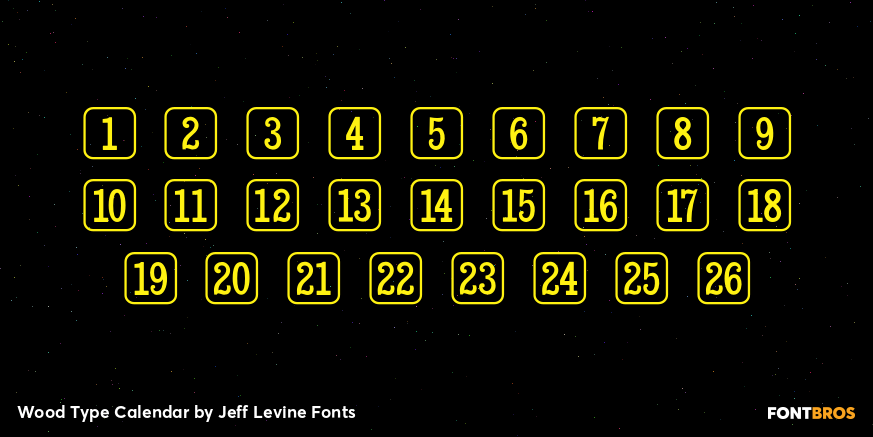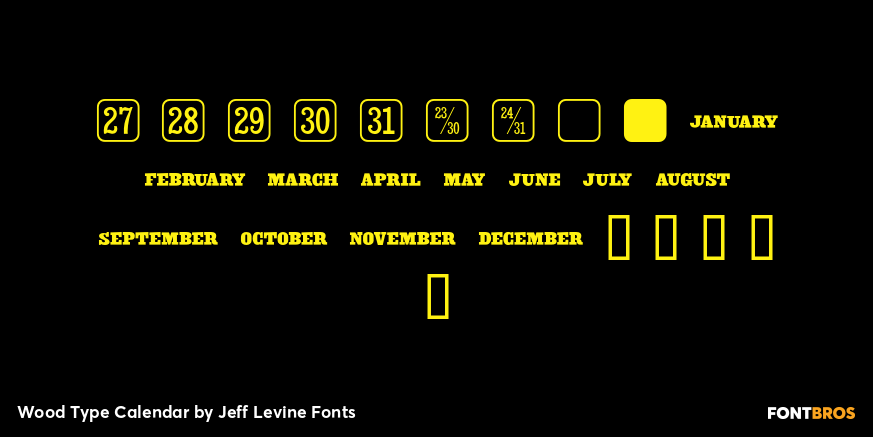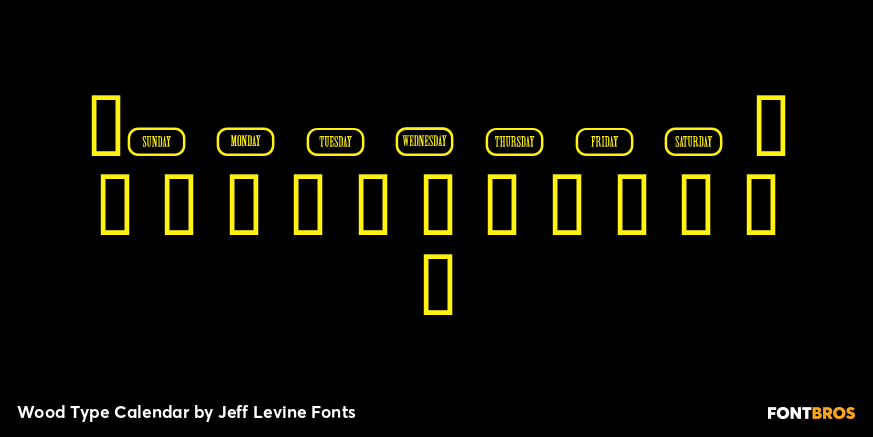
Wood Type Calendar
Wood Type Calendar JNL is a set of components for making monthly calendar pages. Based on a set of vintage wood type numbers, the dates 1 through 31 are found on the 'A-Z' and 'a-e' keys; the 23/30 and 24/31 ligatures are on the 'f' and 'g' keys.
On the 'h' and 'i' keys are blank outline and solid blocks for balancing the calendar layout. The 'j' through 'u' keys have the names of the months, and the '1' through '7' keys contain the days of the week.